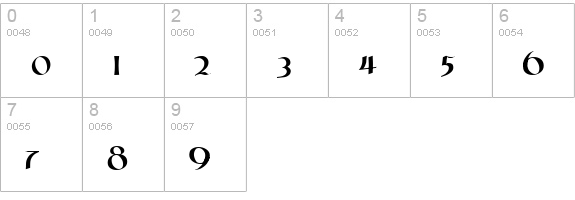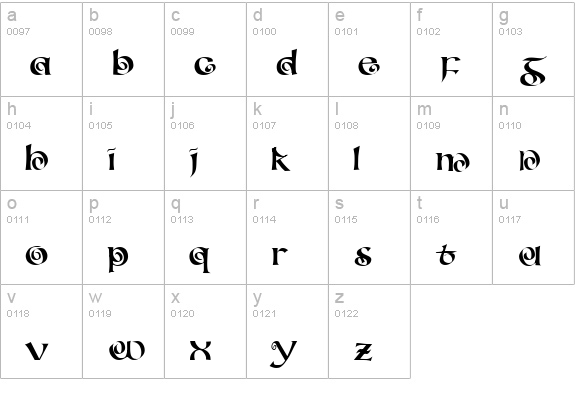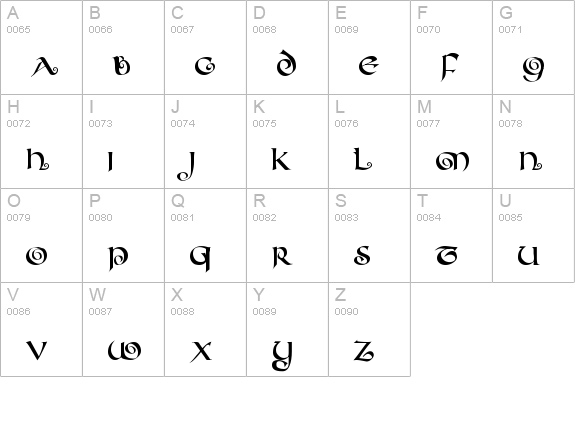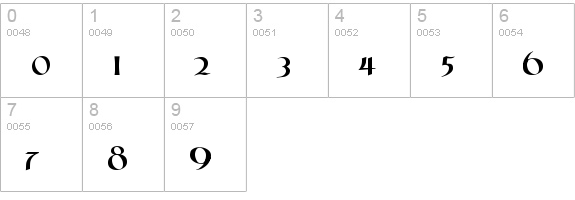
CoiledUncial Font Details
CoiledUncial font exudes a sense of elegance and sophistication with its intricate coils and Celtic-inspired Uncial lettering style. This unique font is perfect for adding a touch of Old World charm to your projects, whether you're designing invitations, posters, or branding materials. What sets CoiledUncial font apart is its seamless blend of classic design elements with a modern twist, making it versatile and eye-catching for a variety of applications. The flowing coils and graceful curves of the letters give this font a sense of movement and fluidity that is sure to captivate any audience. Best of all, CoiledUncial font is available for free download at FontsMarket.com, making it easily accessible for designers of all levels. Don't miss out on the opportunity to add this stunning font to your collection and elevate your projects to new heights of creativity and style.